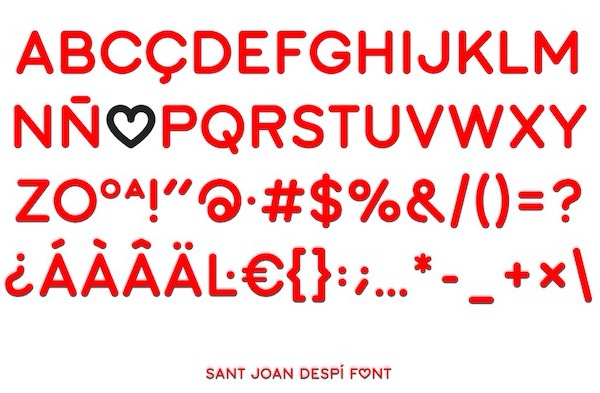
Sant Joan Despi Font
by Forma & Co
About Sant Joan Despi Font from Forma & Co. This font has a unique, artistic style, with rounded edges and varying line thicknesses. Its letterforms are somewhat elongated which adds to the font’s dynamic appearance. It could be a good choice for your modern designs like headlines, titles, or other design elements that need to catch the viewer’s attention.
It captures the essence of playfulness and whimsy. This typeface will add a touch of uniqueness to any design. When use Sant Joan Despi Font, you will receive a sense of joy and creativity, your design projects become more perfect.
And there is a unique creativity here, that is a clever combination similar to the Pretty You Font style, specifically the designer has integrated elegant sans serif characters with attractive icons to create a perfect masterpiece.
Depending on each individual’s aesthetic eye, they can decide which font to use for their design projects. For a font with a unique combination, creating impressive products is not difficult. You can realize this with specific designs as follows:
The application of Sant Joan Despi Font
You can use this font in signage for streets, businesses, and public facilities due to its clarity and legibility. Moreover, we also commonly use it for branding materials such as logos, packaging, and promotional materials, where its modern appearance helps convey a sleek and professional image.
In print design, it is used in magazines, posters, brochures, and other publications for its clean and contemporary look. Additionally, it’s often employed in digital media such as websites, social media graphics, and digital advertisements for its readability and stylish appeal.